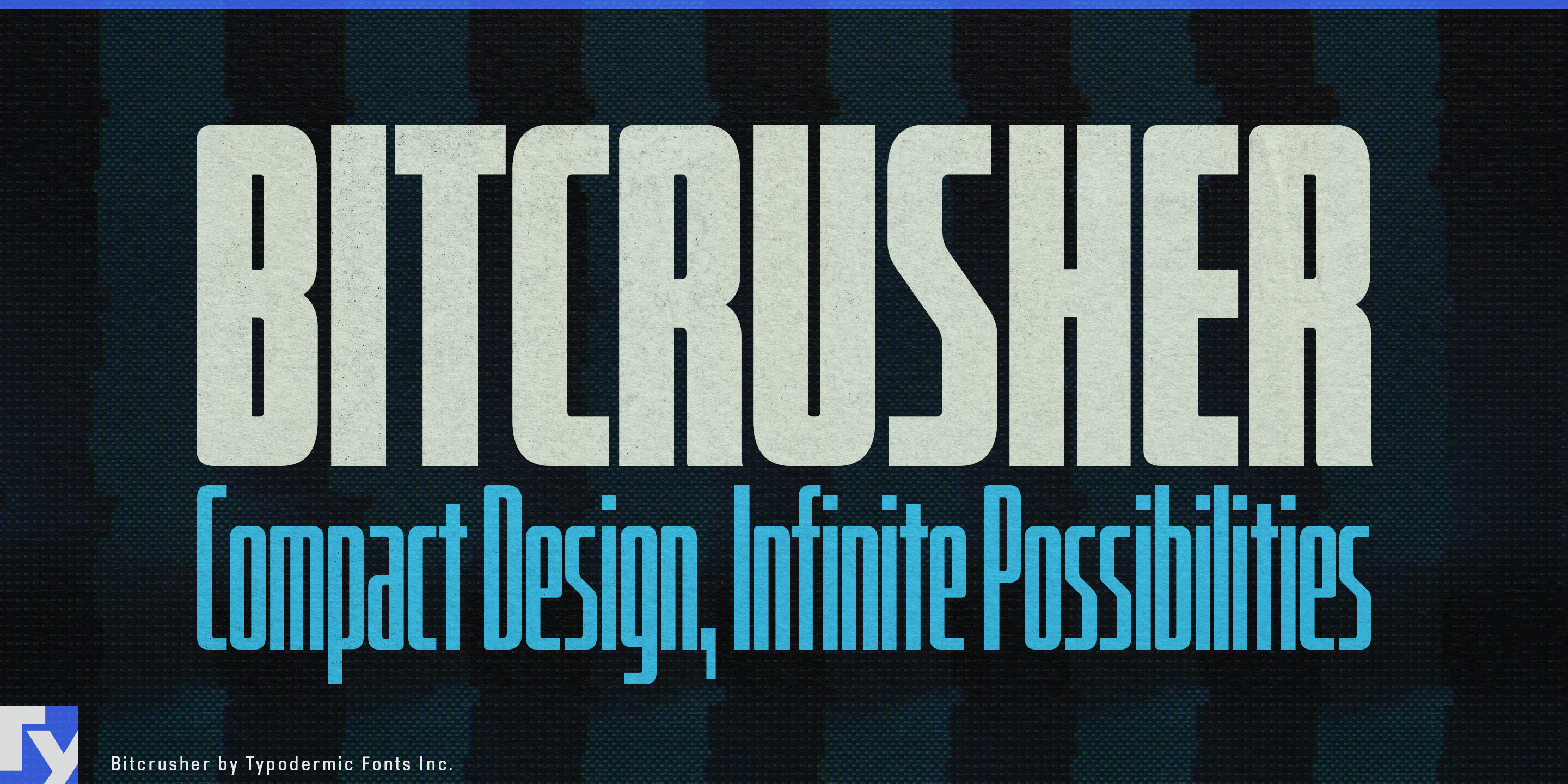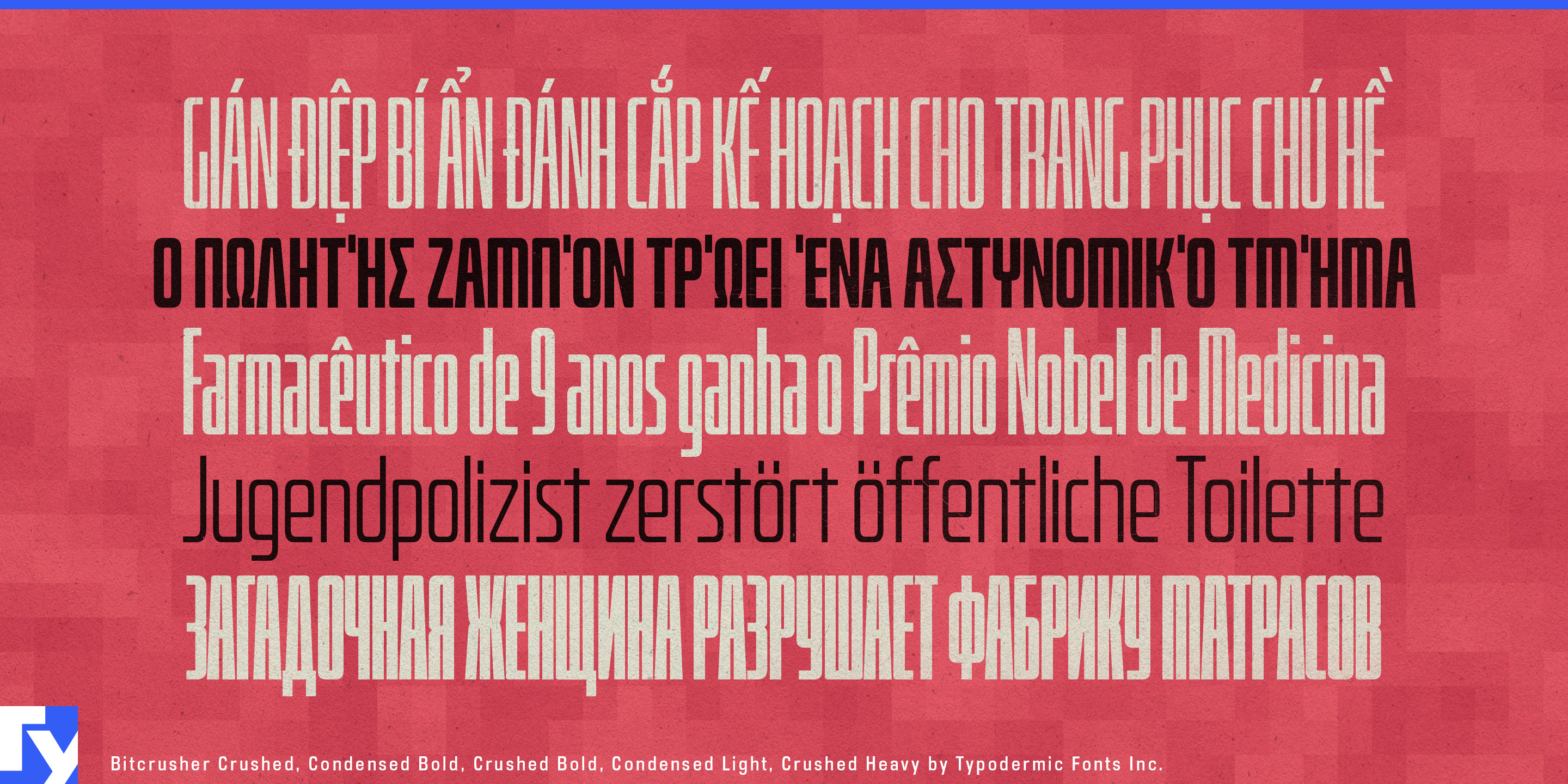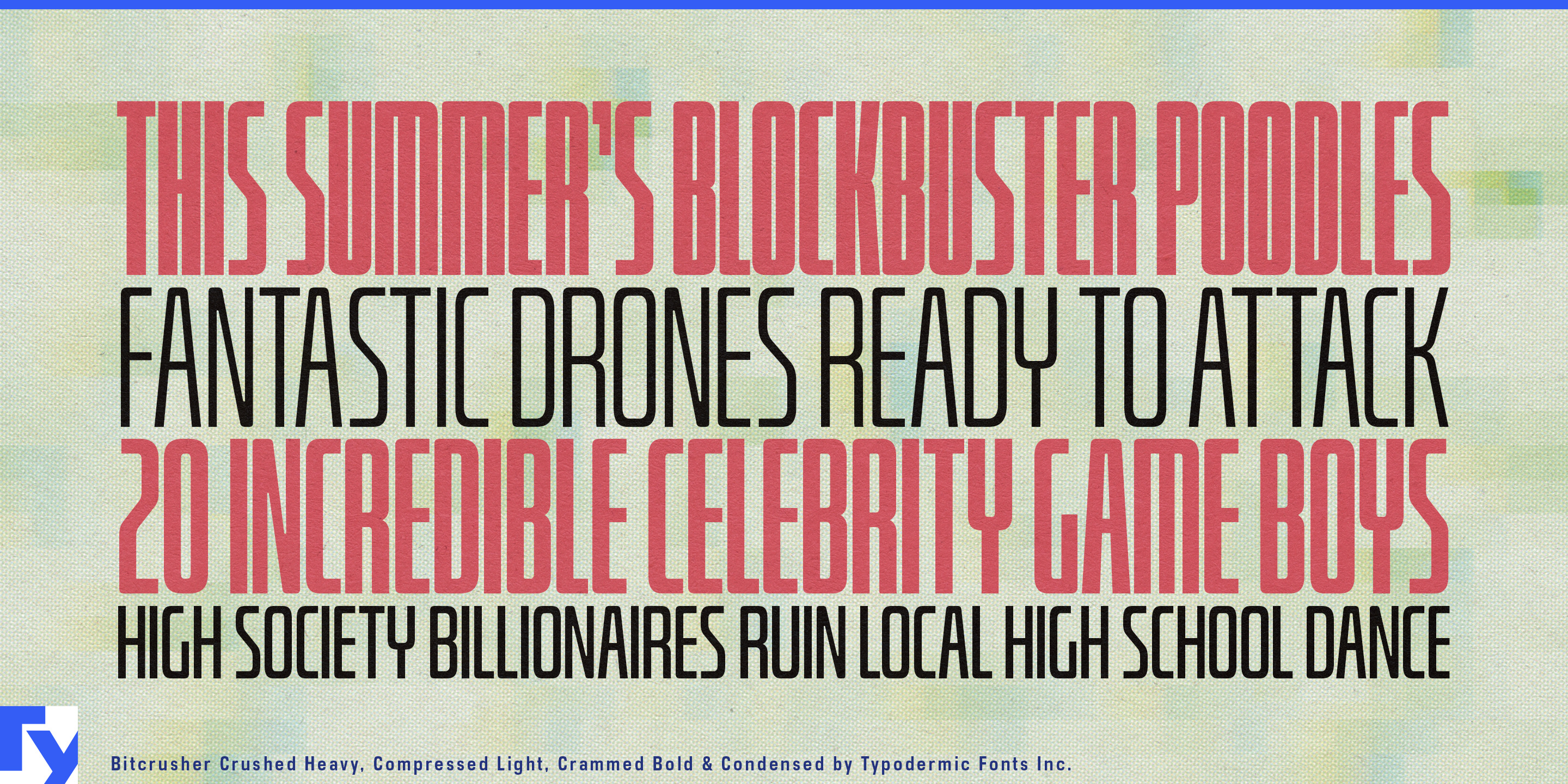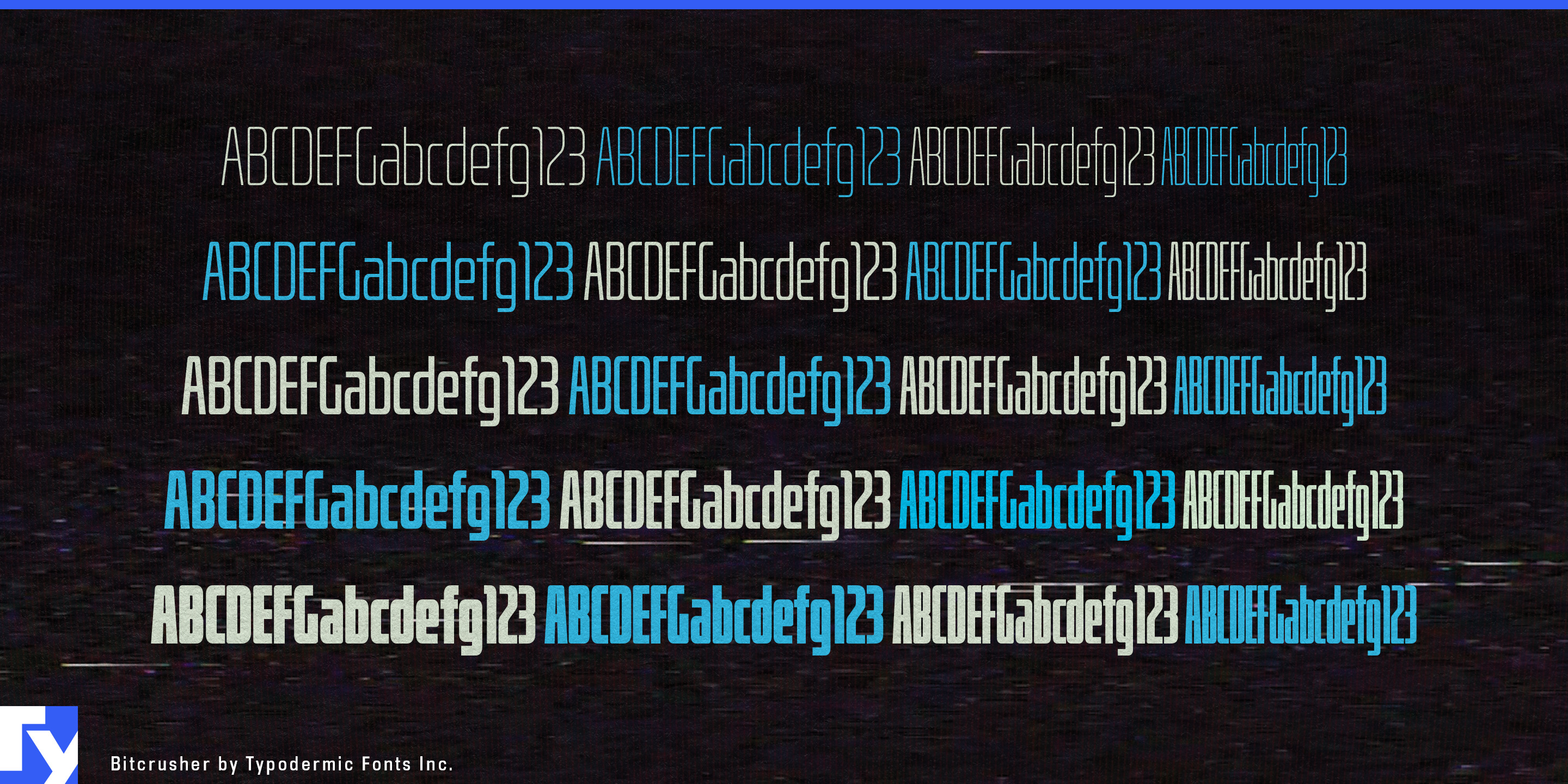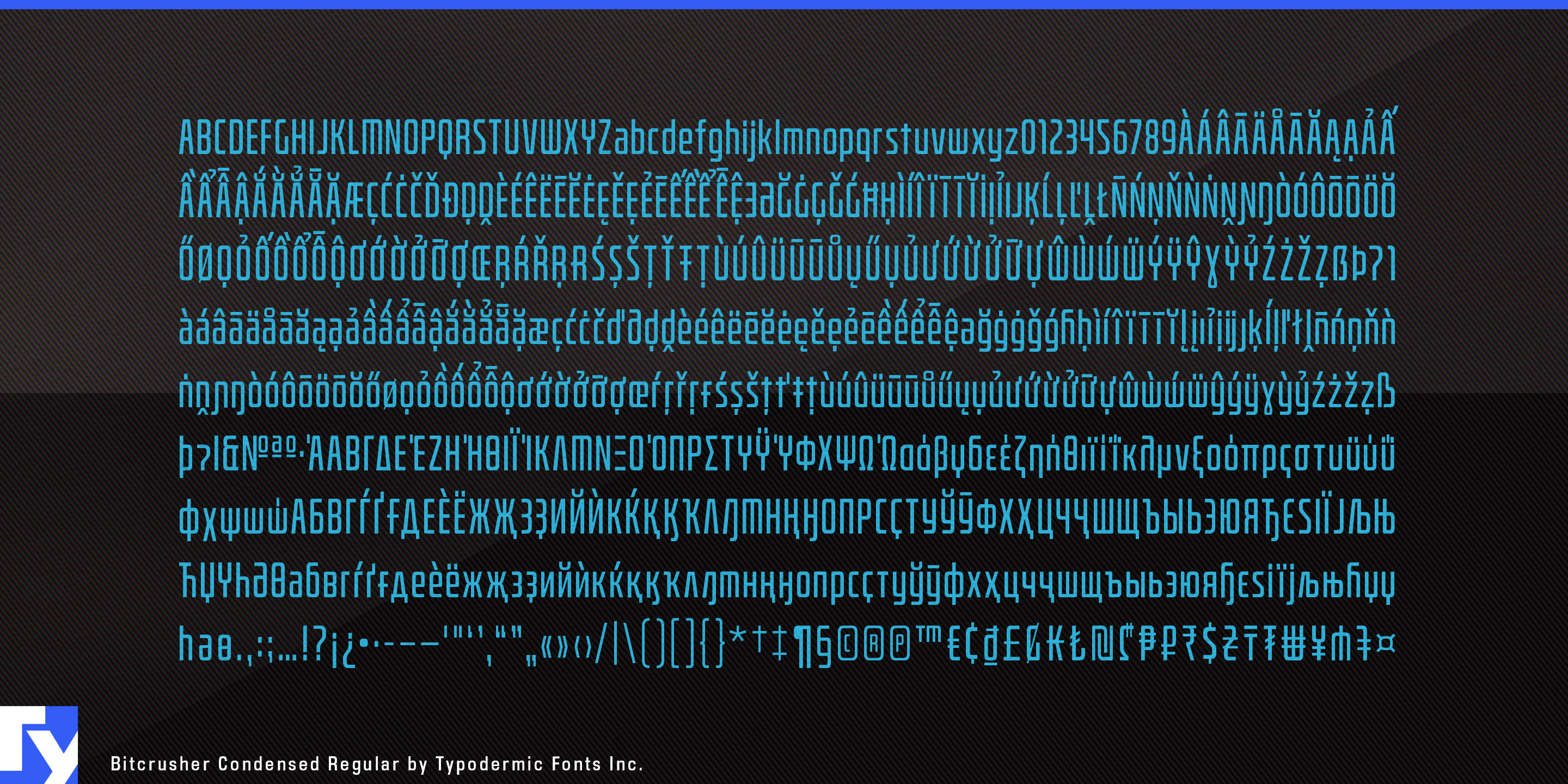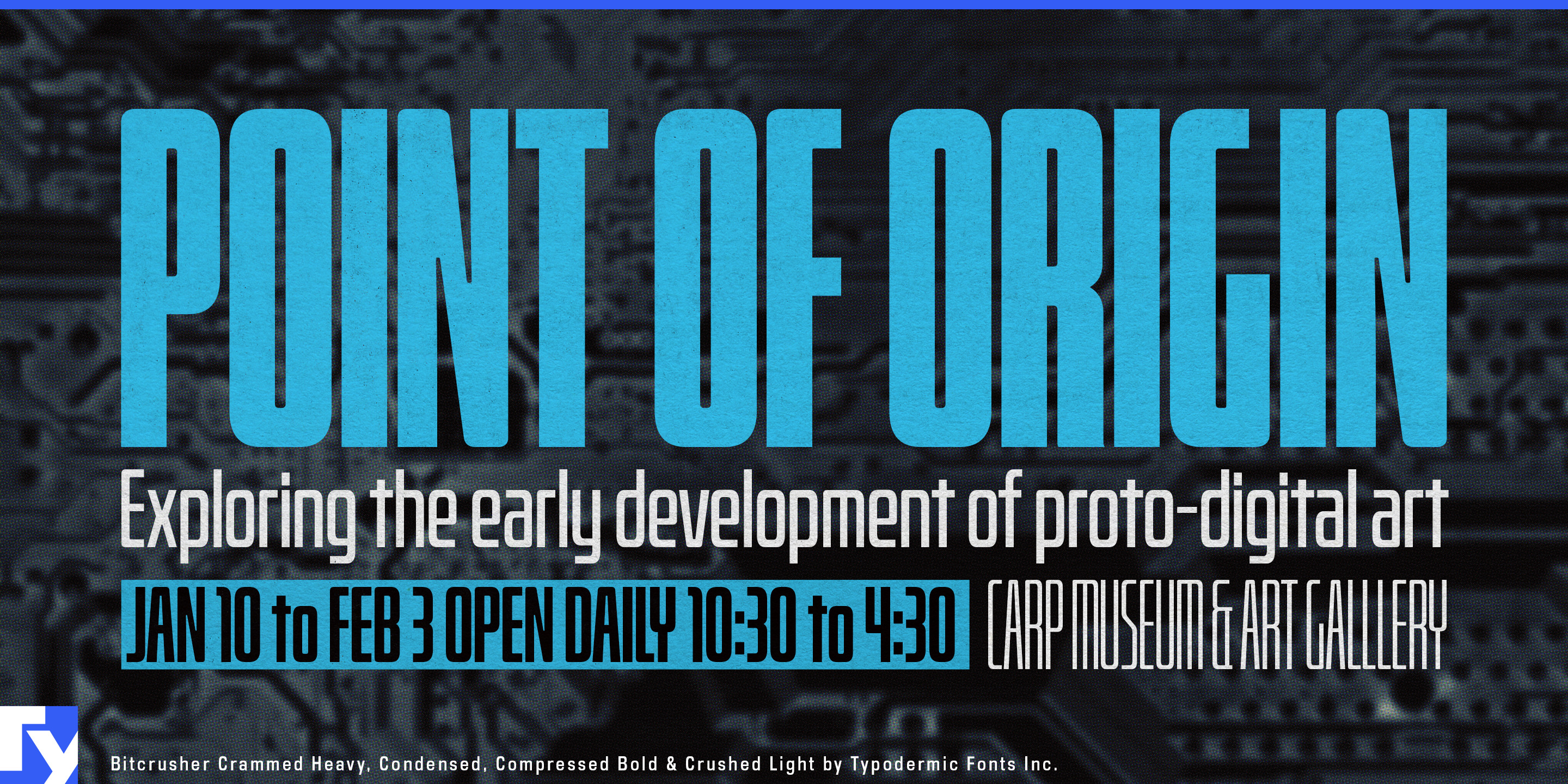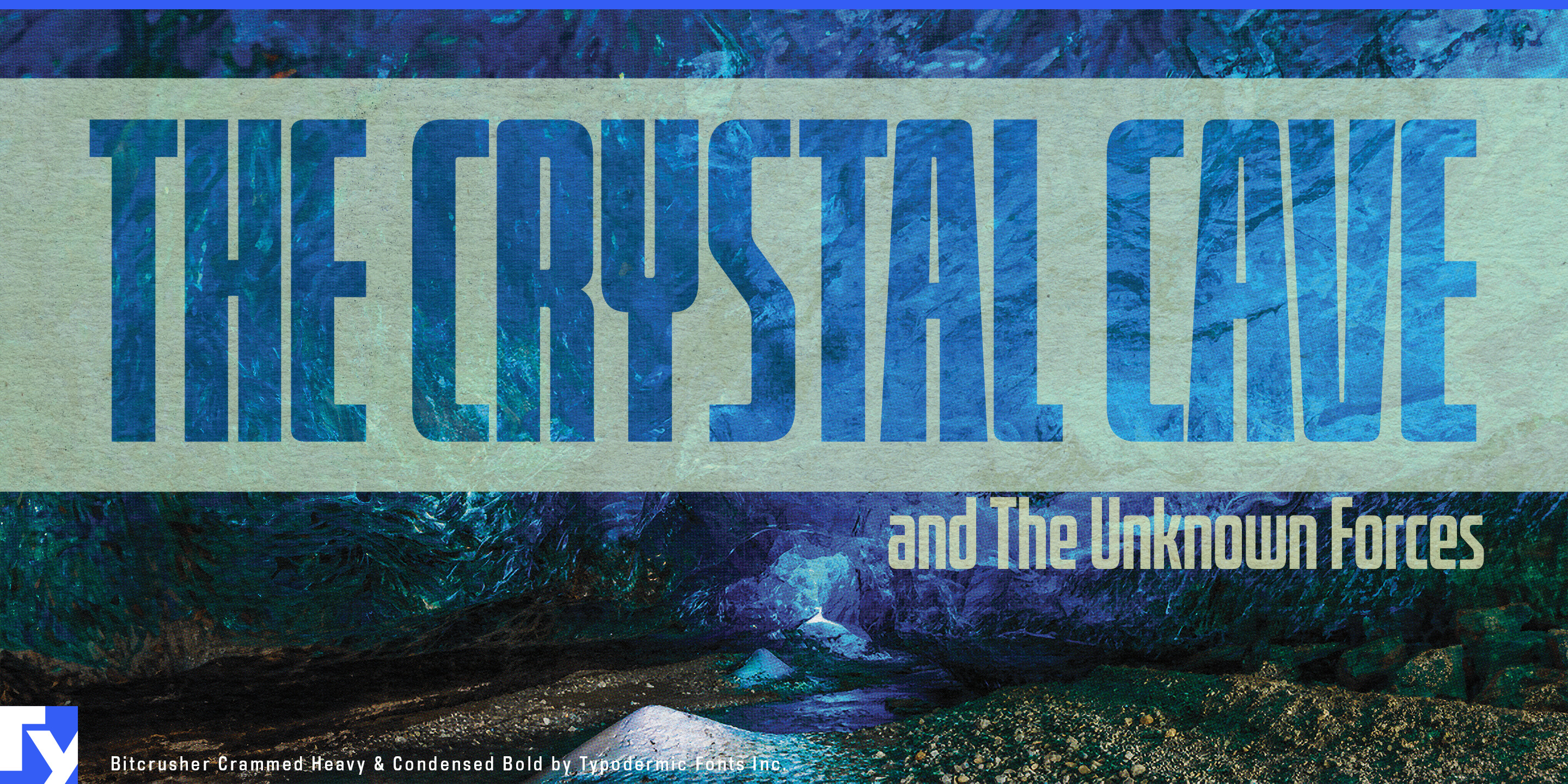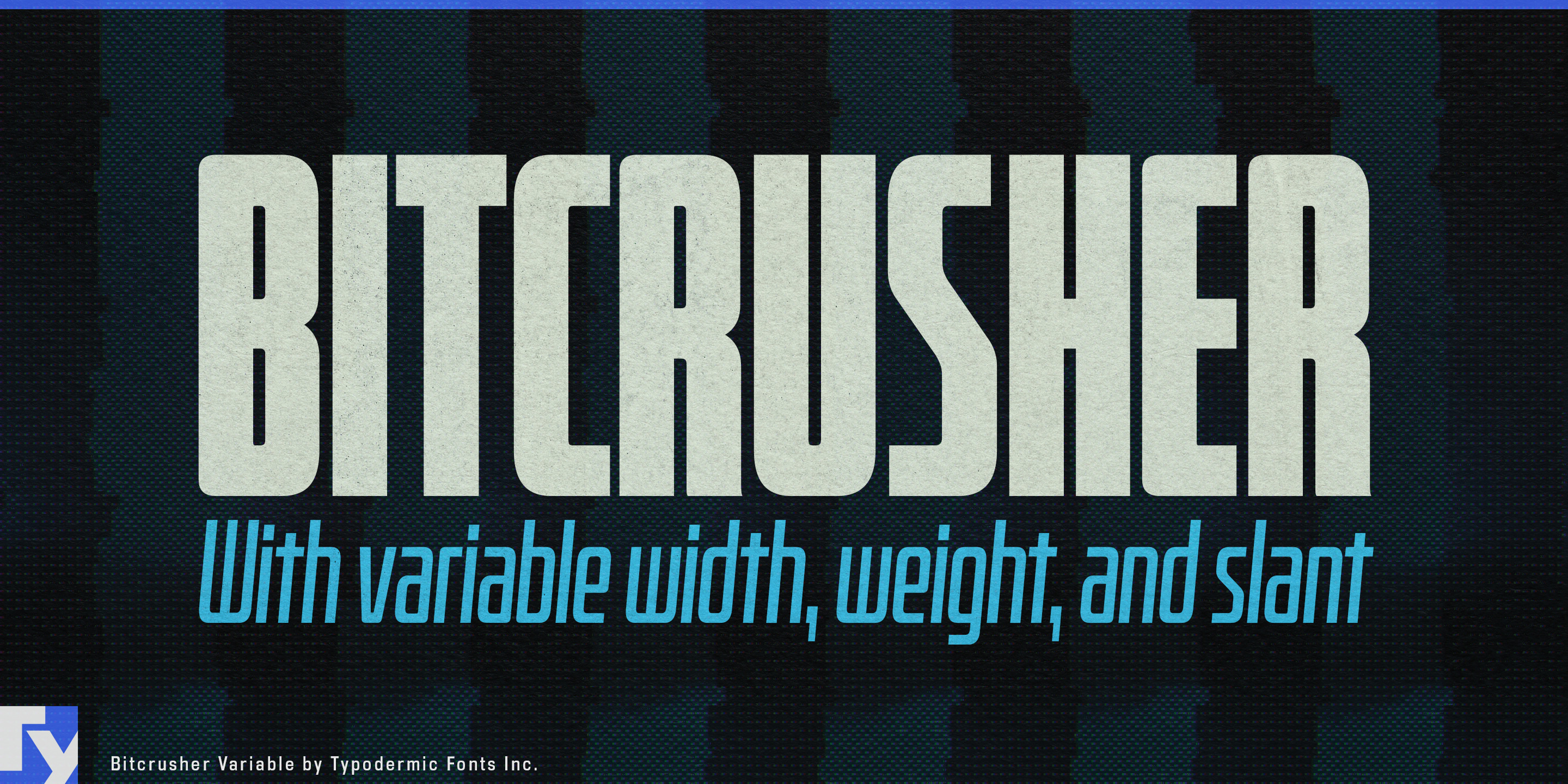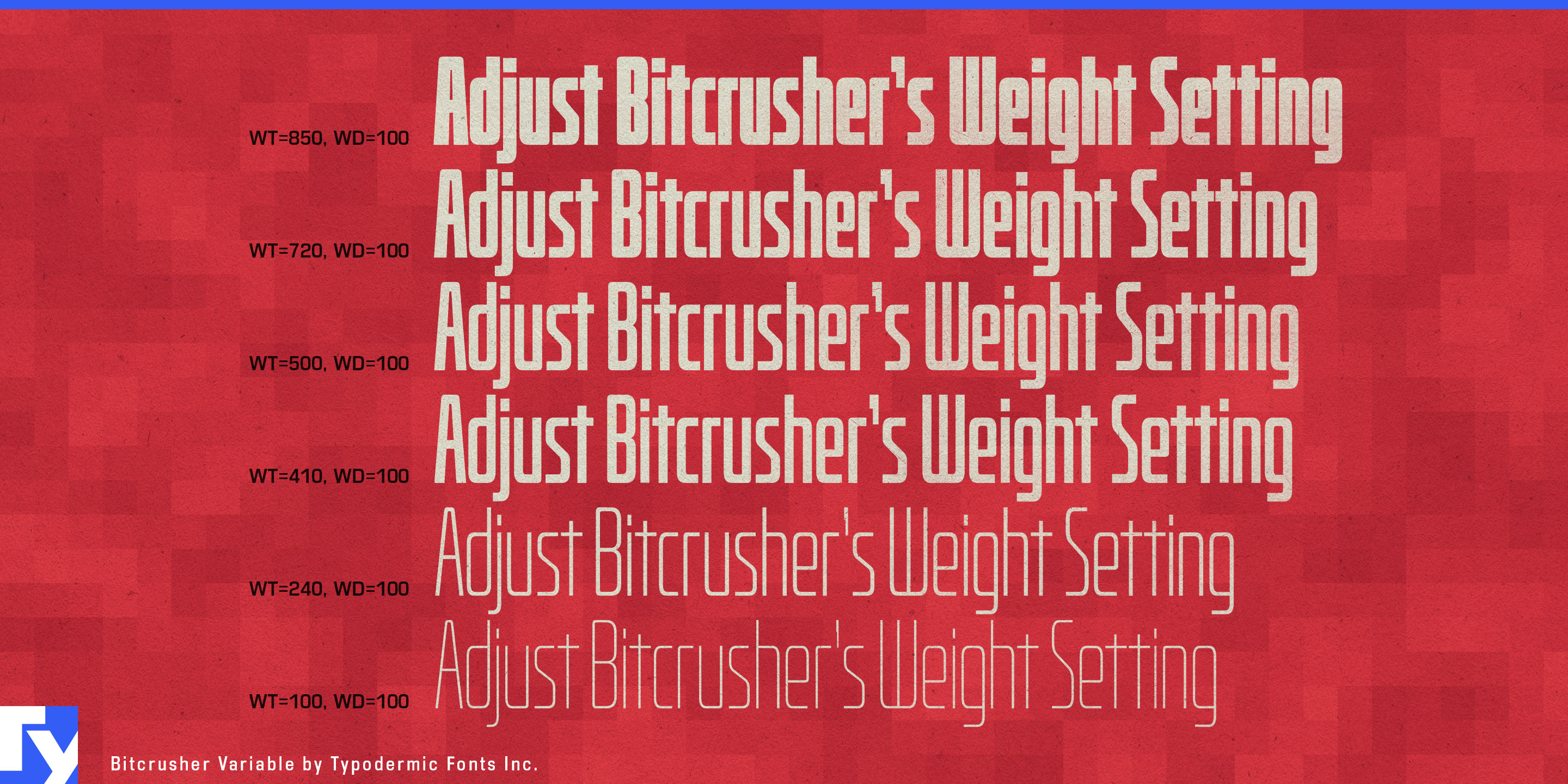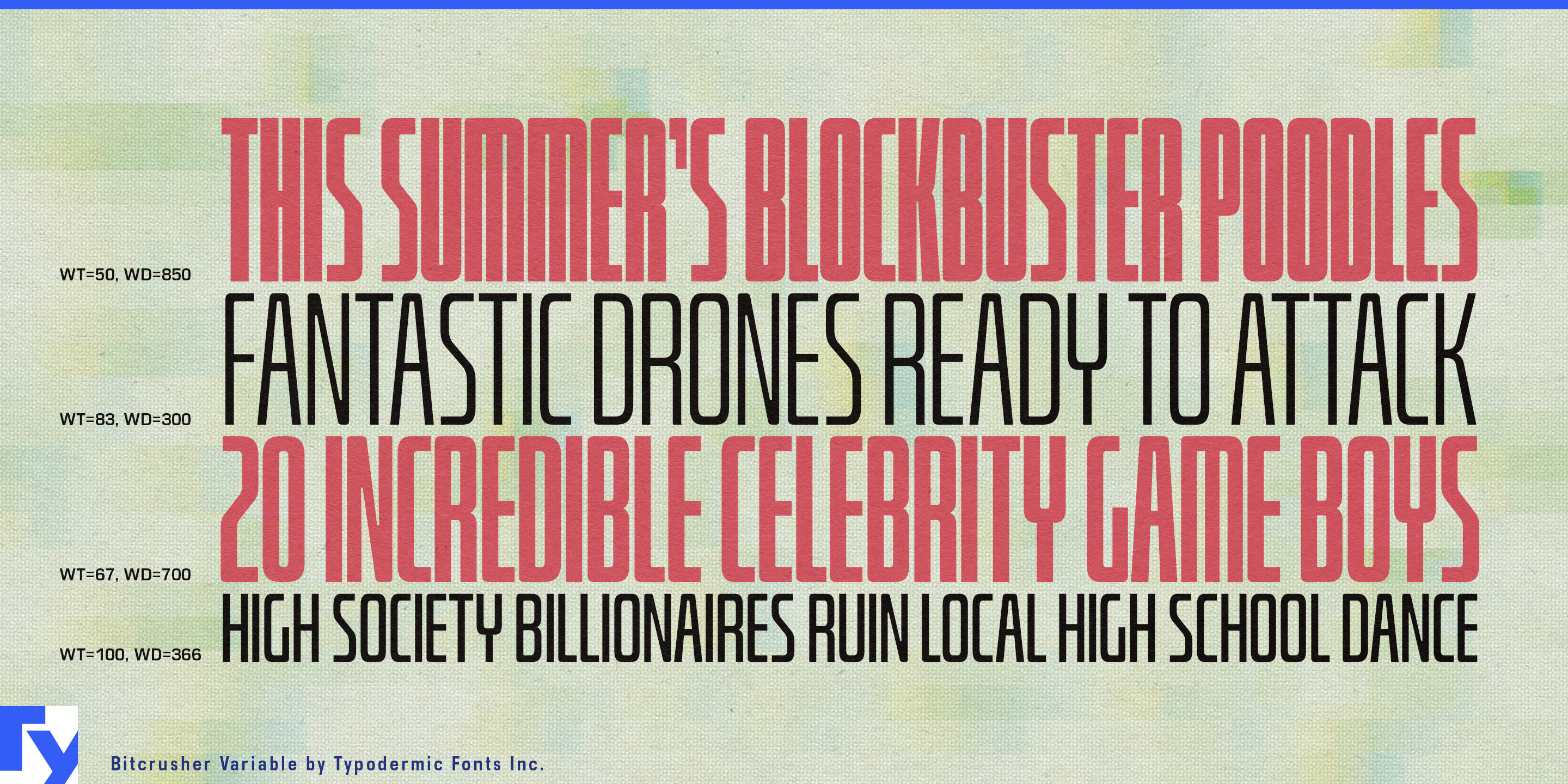
Bitcrusher
Bitcrusher is a compact sans-serif typeface built for designers who like to push the limits. Even its regular width is leaner than most condensed typefaces, and at its narrowest it squeezes letters down to the very edge of readability. It’s the typographic equivalent of a sports car that can hit 250kph—you may never need to go that fast, but knowing you can is part of the thrill.
Its geometry is clean and disciplined, yet softened with subtle curves that keep it approachable. The extreme horizontal compression demanded some clever engineering—like vertical strokes replacing diagonals in letters such as M, W, and w—to maintain clarity when space is brutally tight. The result is a family that stays legible and confident, even when crushed to the limit.
Bitcrusher comes in five weights and four widths: Condensed, Compressed, Crammed, and Crushed. Each width is designed to preserve consistent stem and spacing relationships, so you can scale, track, or stretch without breaking the design. Whether you’re creating attention-grabbing headlines, packing maximum information into minimal space, or just playing with extreme proportions for the joy of it, Bitcrusher delivers the control you need. And it’s not just for one language. Bitcrusher covers most Latin-based European languages, plus Greek, Cyrillic, and Vietnamese—making it ready for global projects that demand impact in multiple scripts.
From towering poster headlines to ultra-tight UI labels, Bitcrusher turns the challenge of limited space into a creative advantage. You might never use its most extreme widths—but you’ll love knowing they’re there.